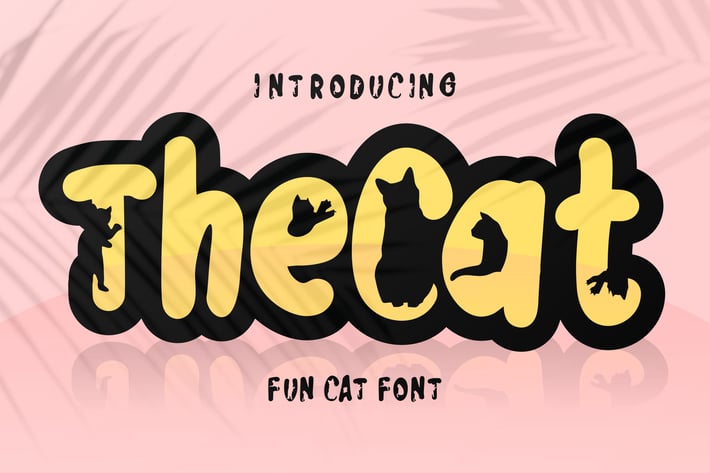
The Cat | Fun Cat Font
The Cat | Fun Cat Font with a calligraphy style, So beautiful on invitation like greeting cards, branding materials, business cards, quotes, posters, and more!